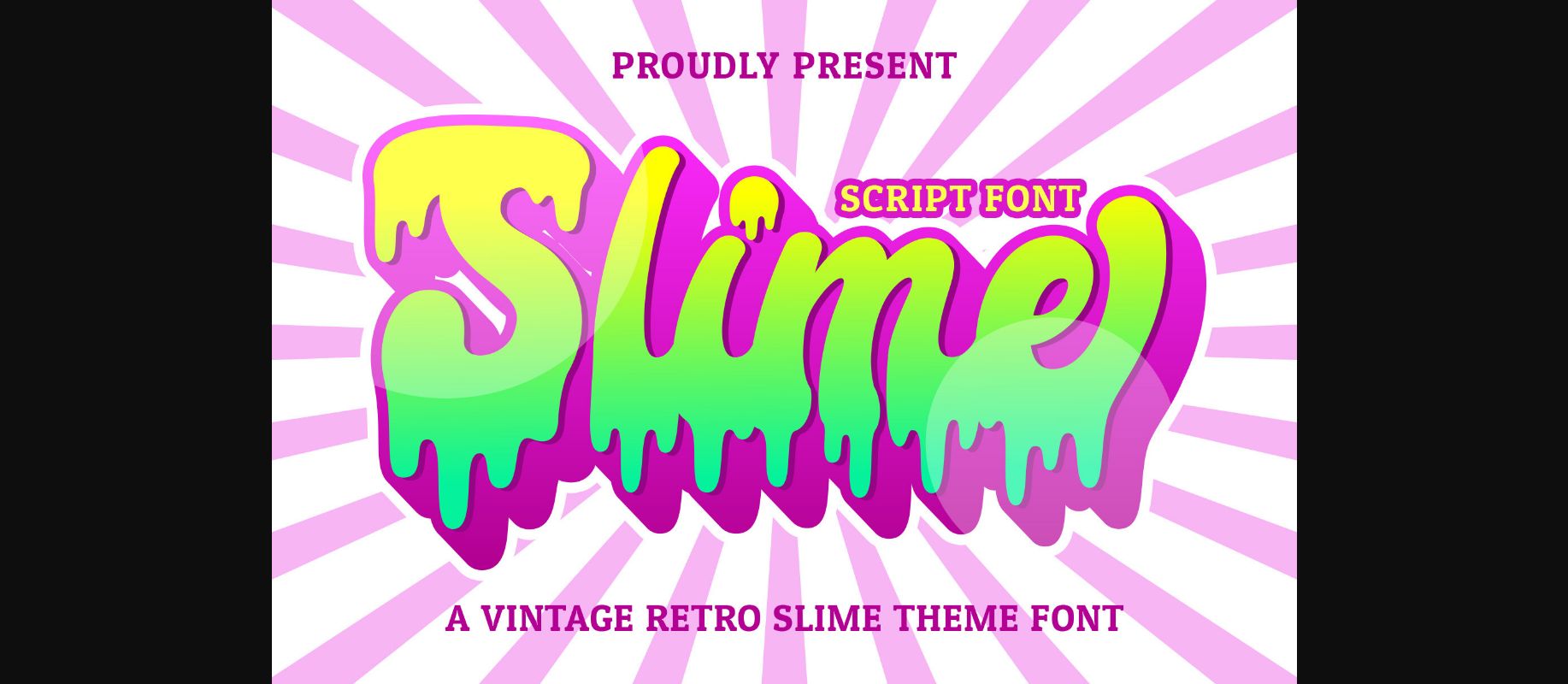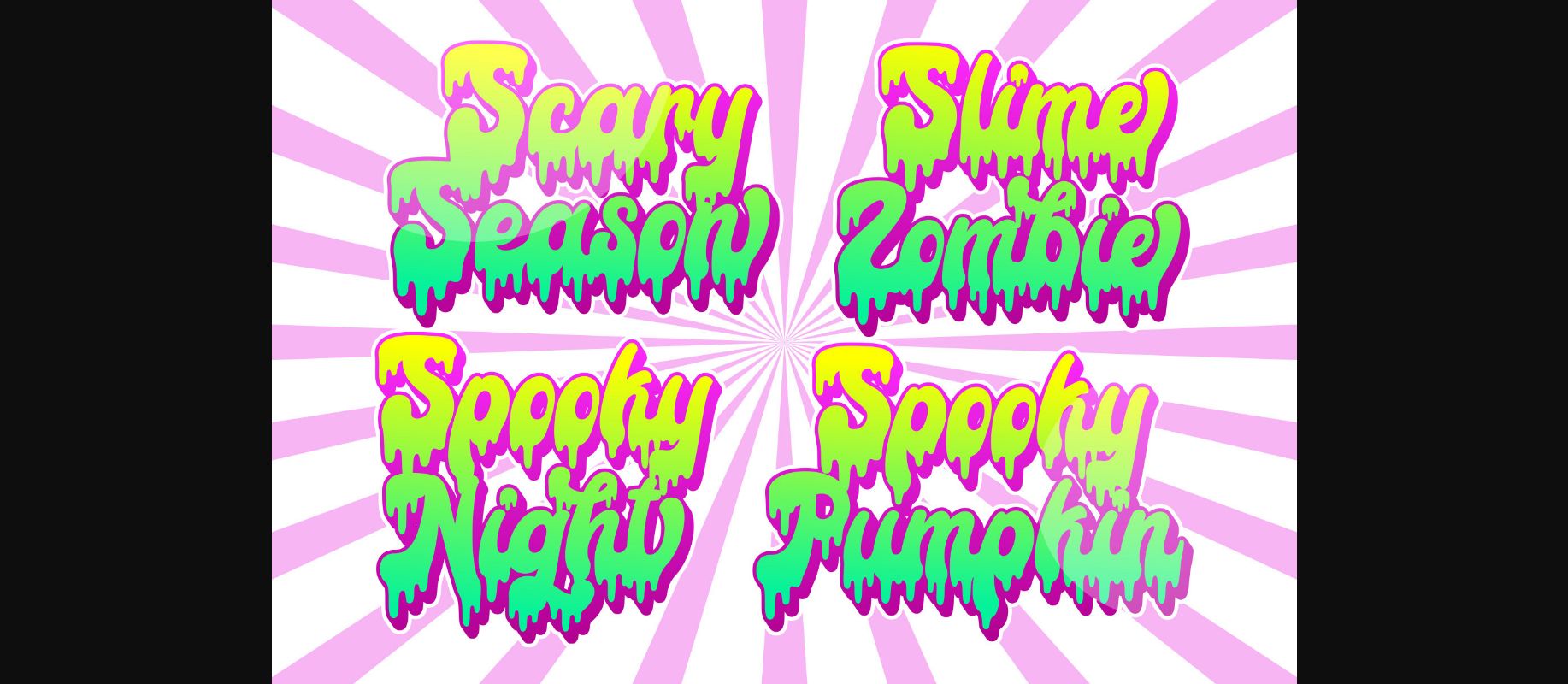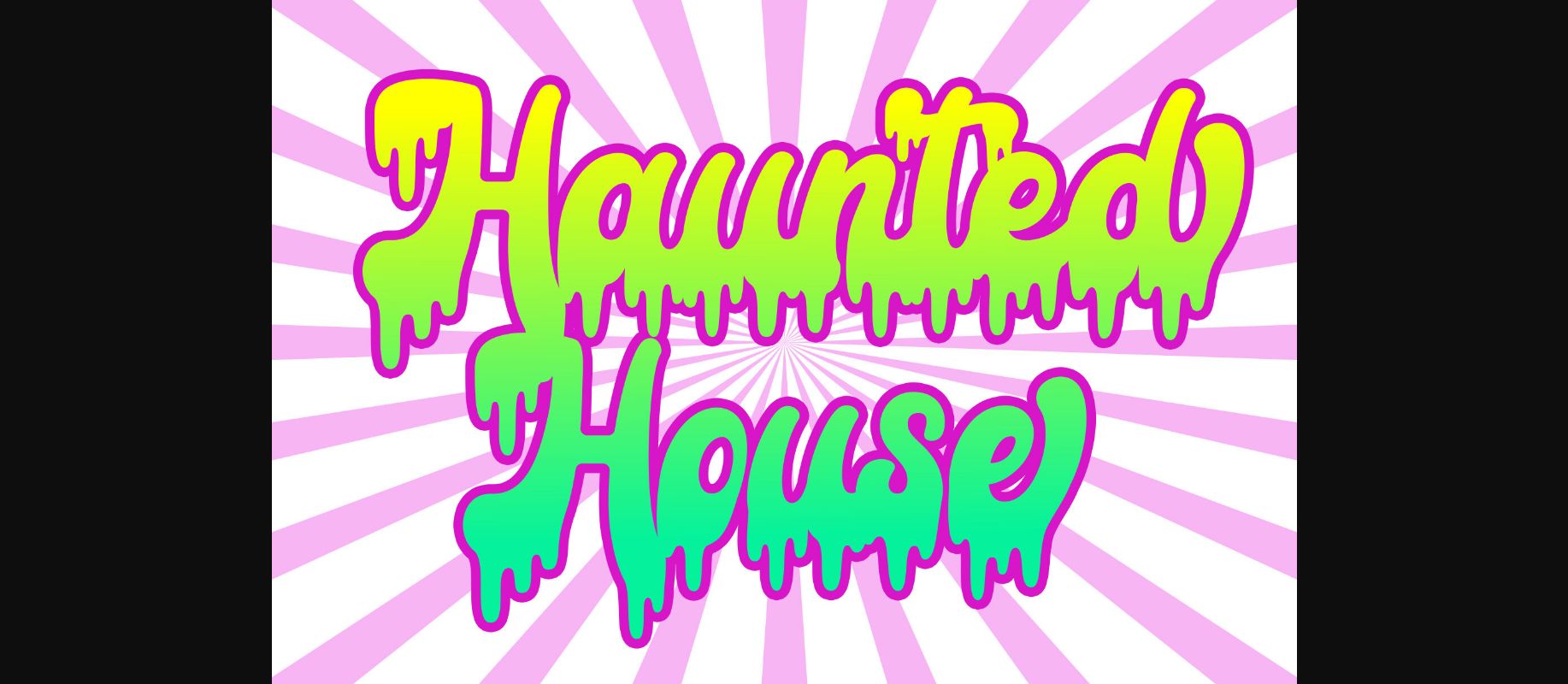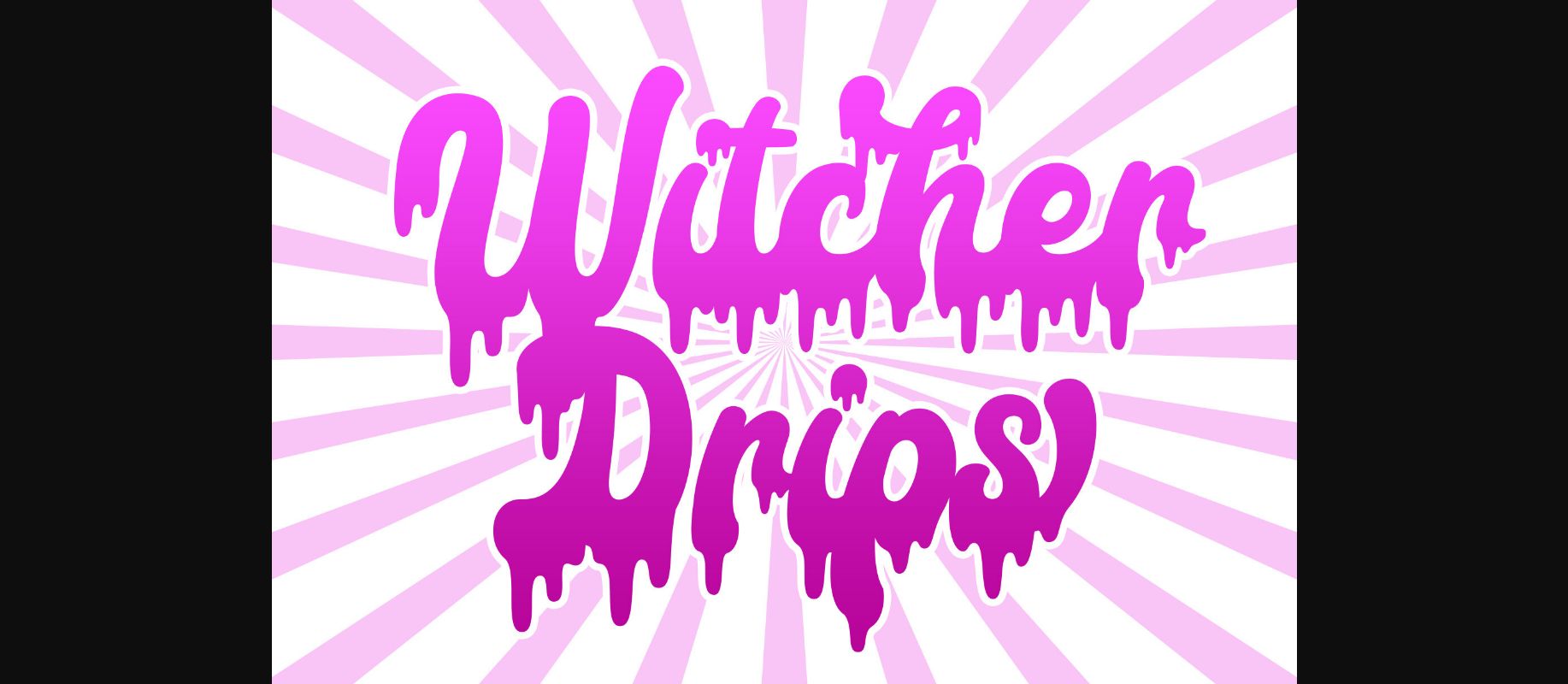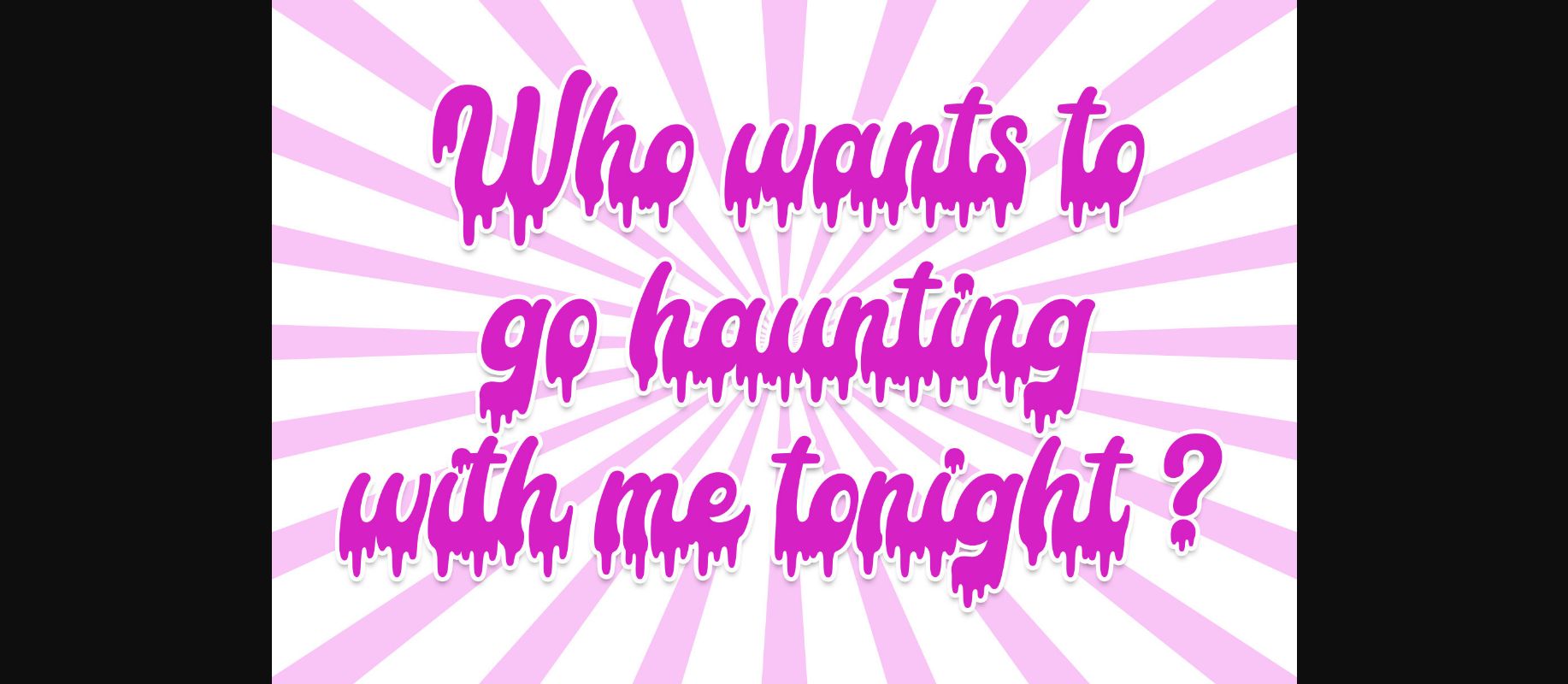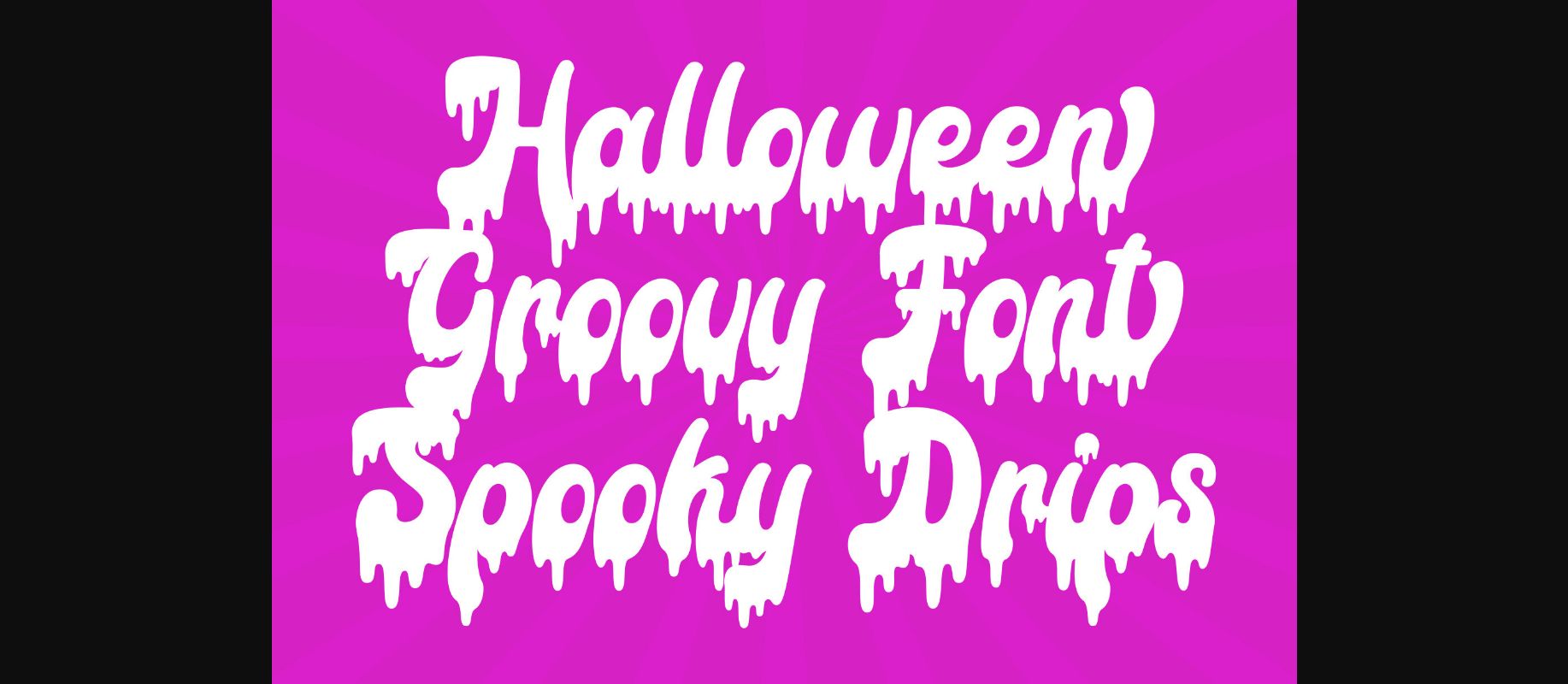
About Slime Font
Slime Script is a cool, vintage-style script Bold font. Use it to add that special retro and slime touch to any design idea! It can be used for logos, branding, invitations, stationery, wedding designs, social media posts, and much more!